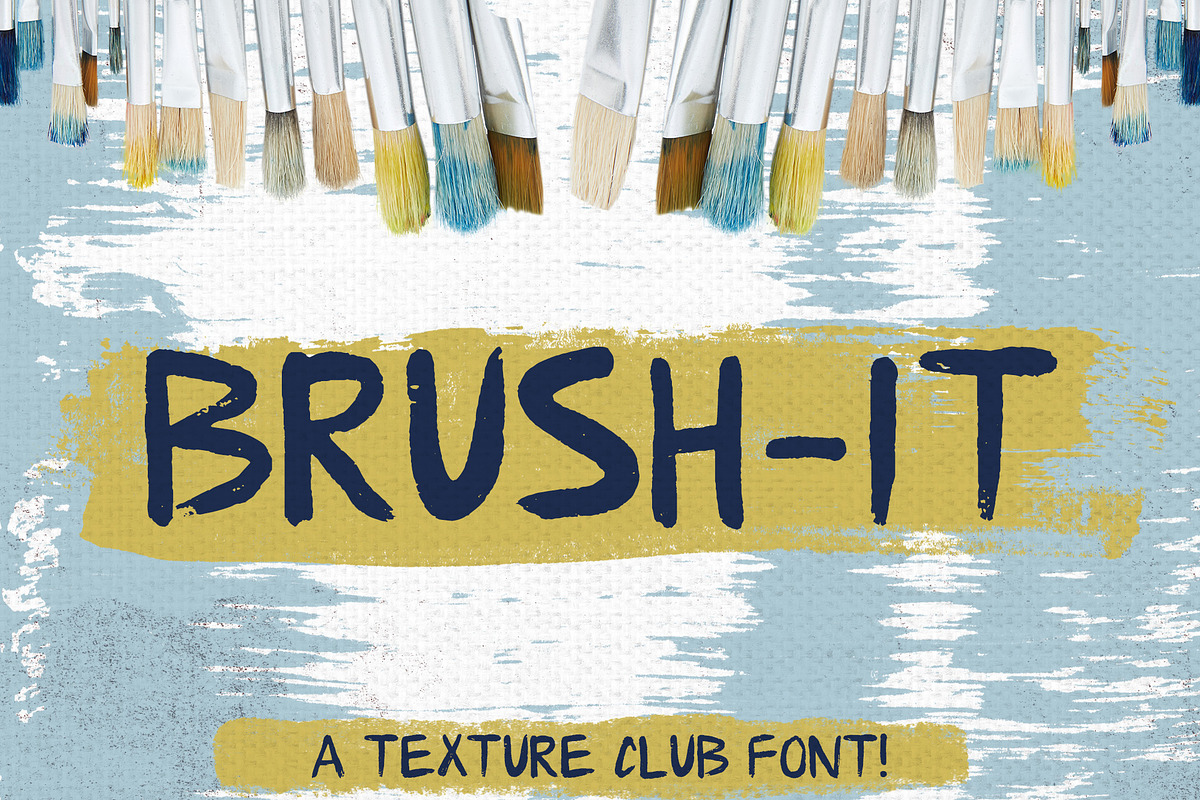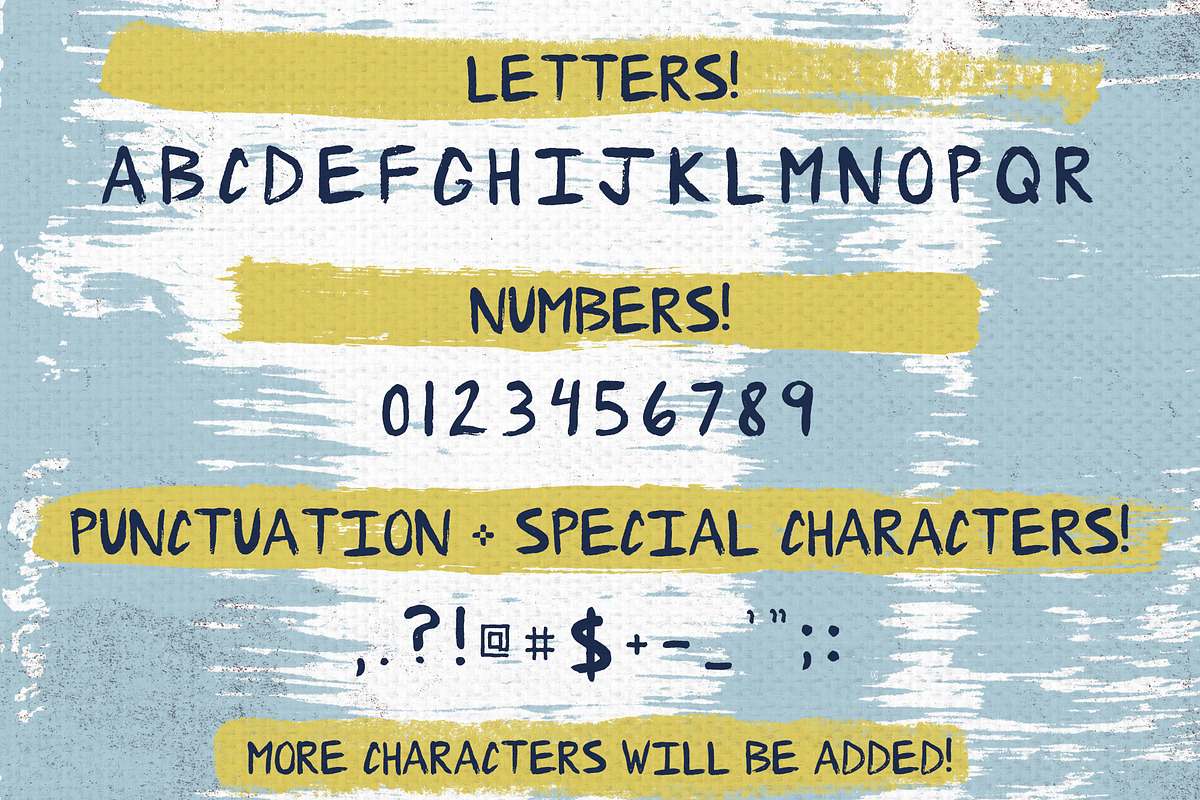
Brush-It - brushed font
Brush-It - brushed font by Texture Club is a font selected for branding, posters, packaging, typography.
Brush-It - brushed font by Texture Club fits naturally into Branding, posters, packaging, typography.